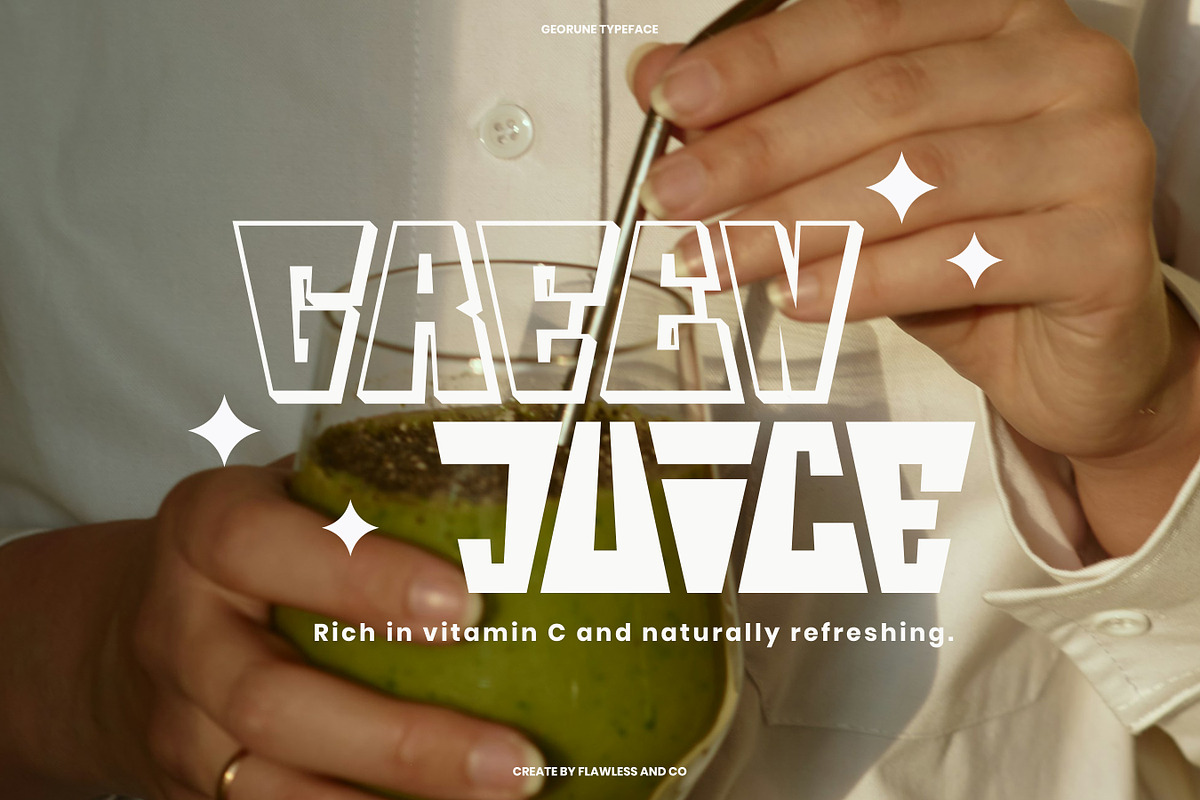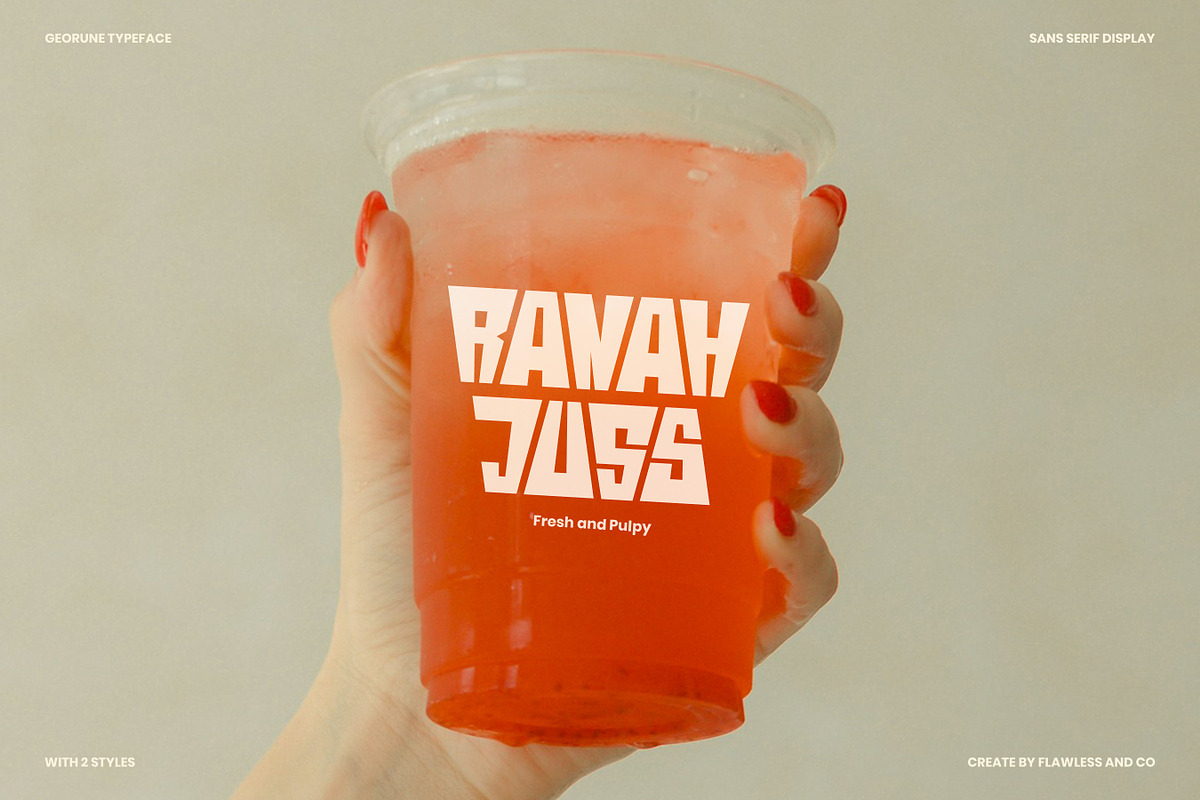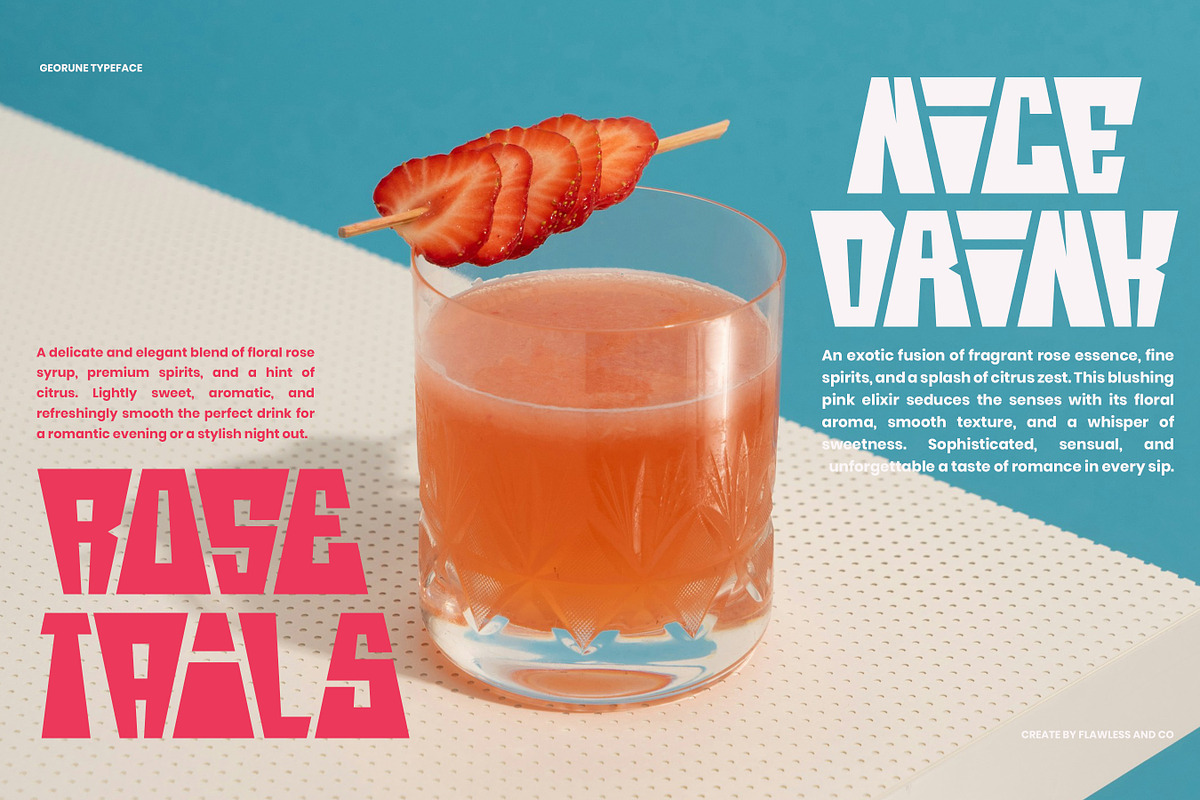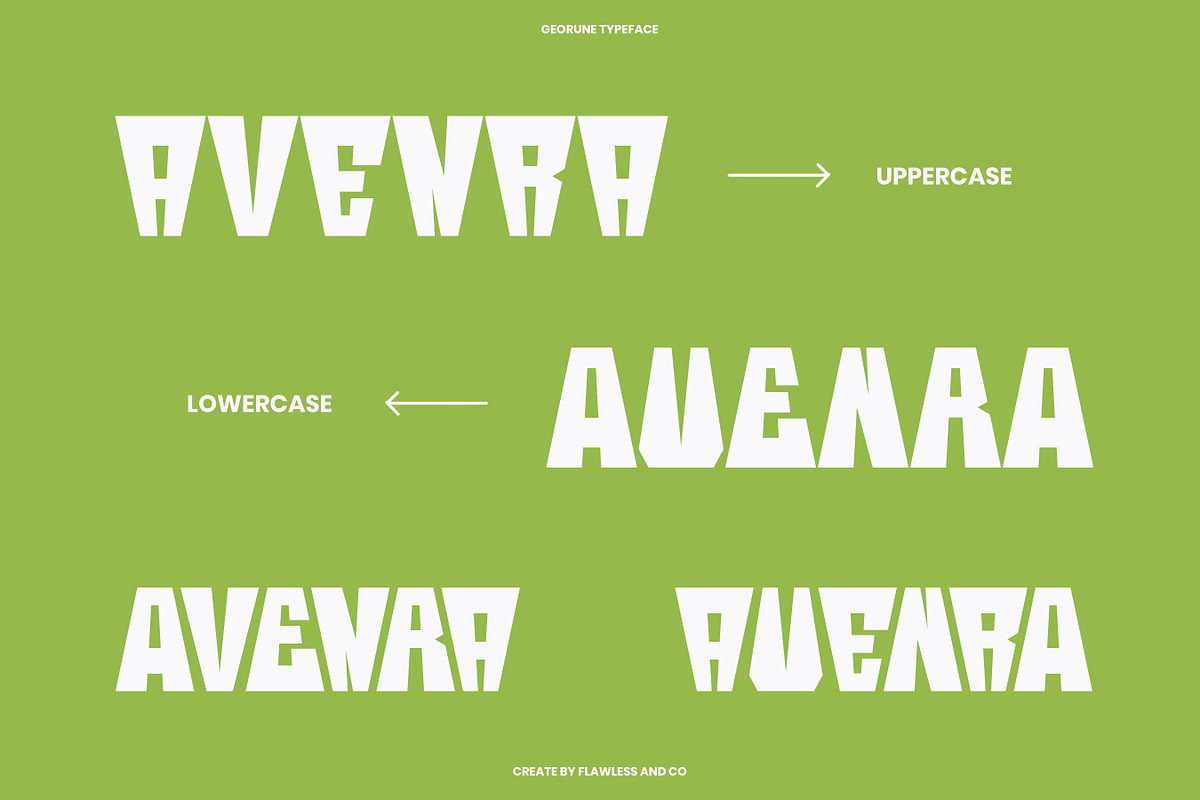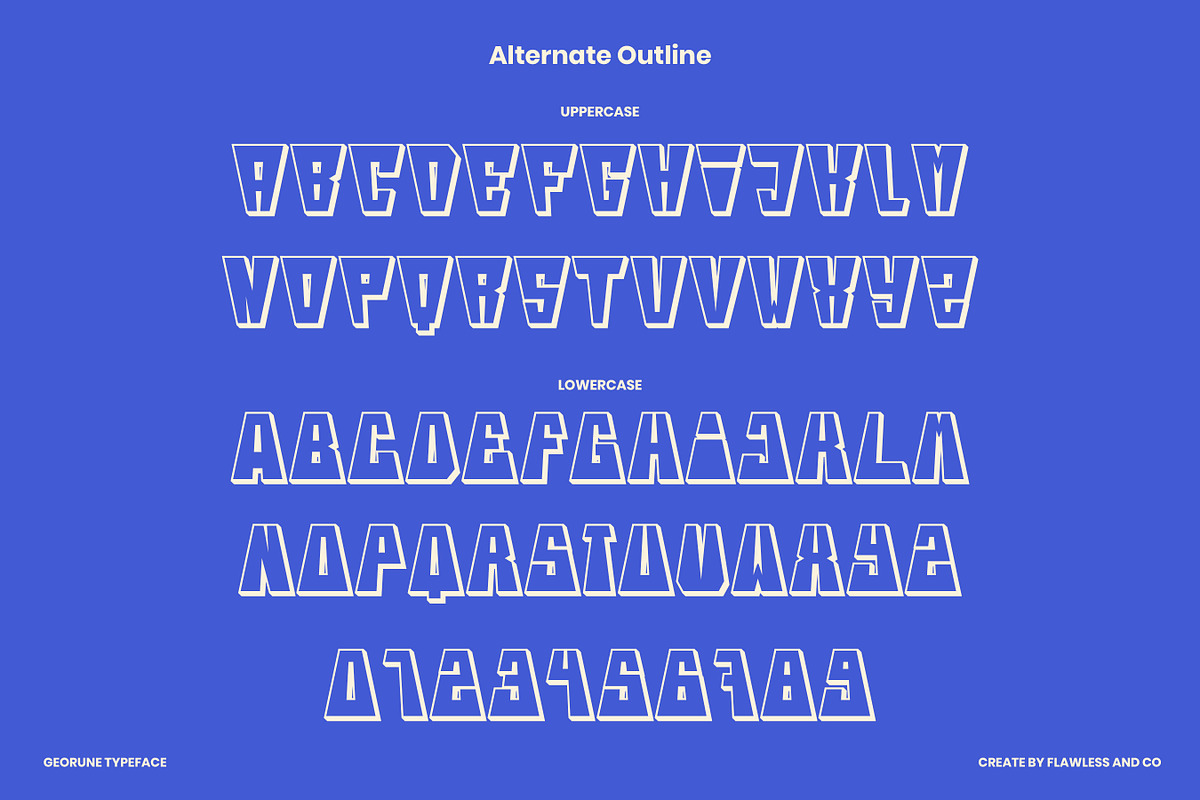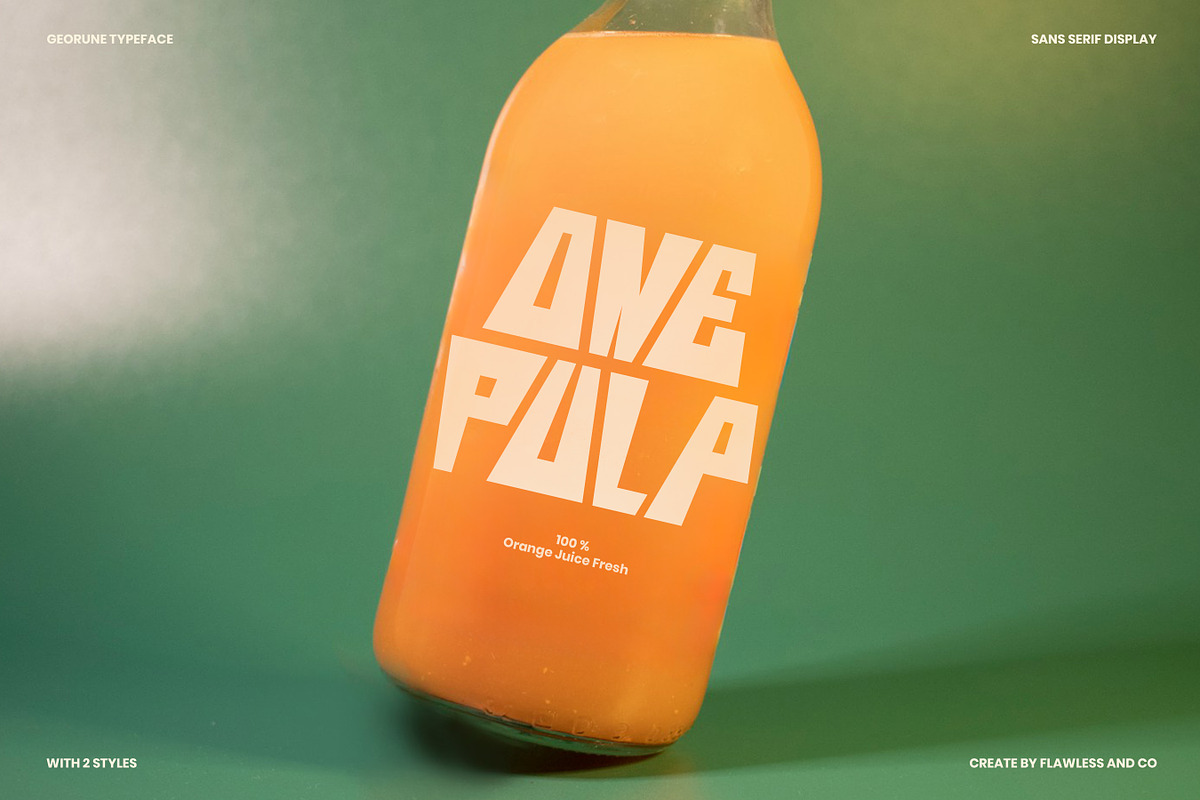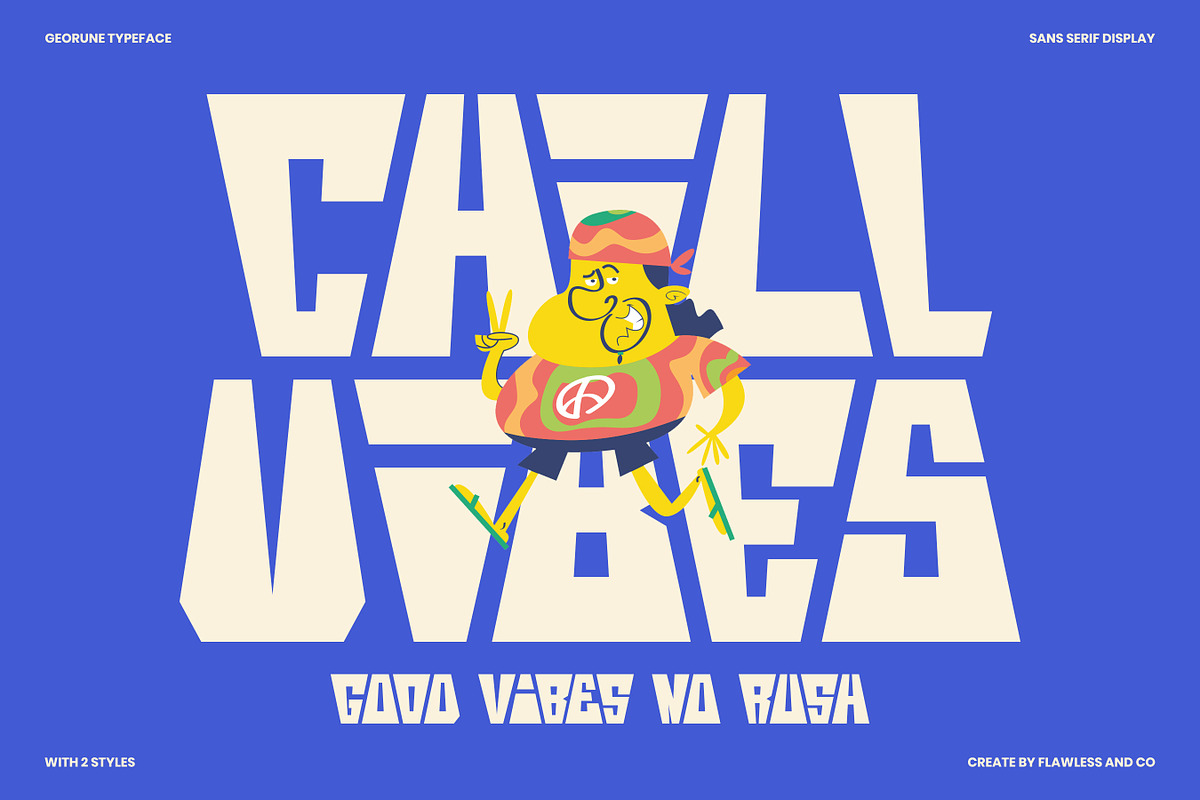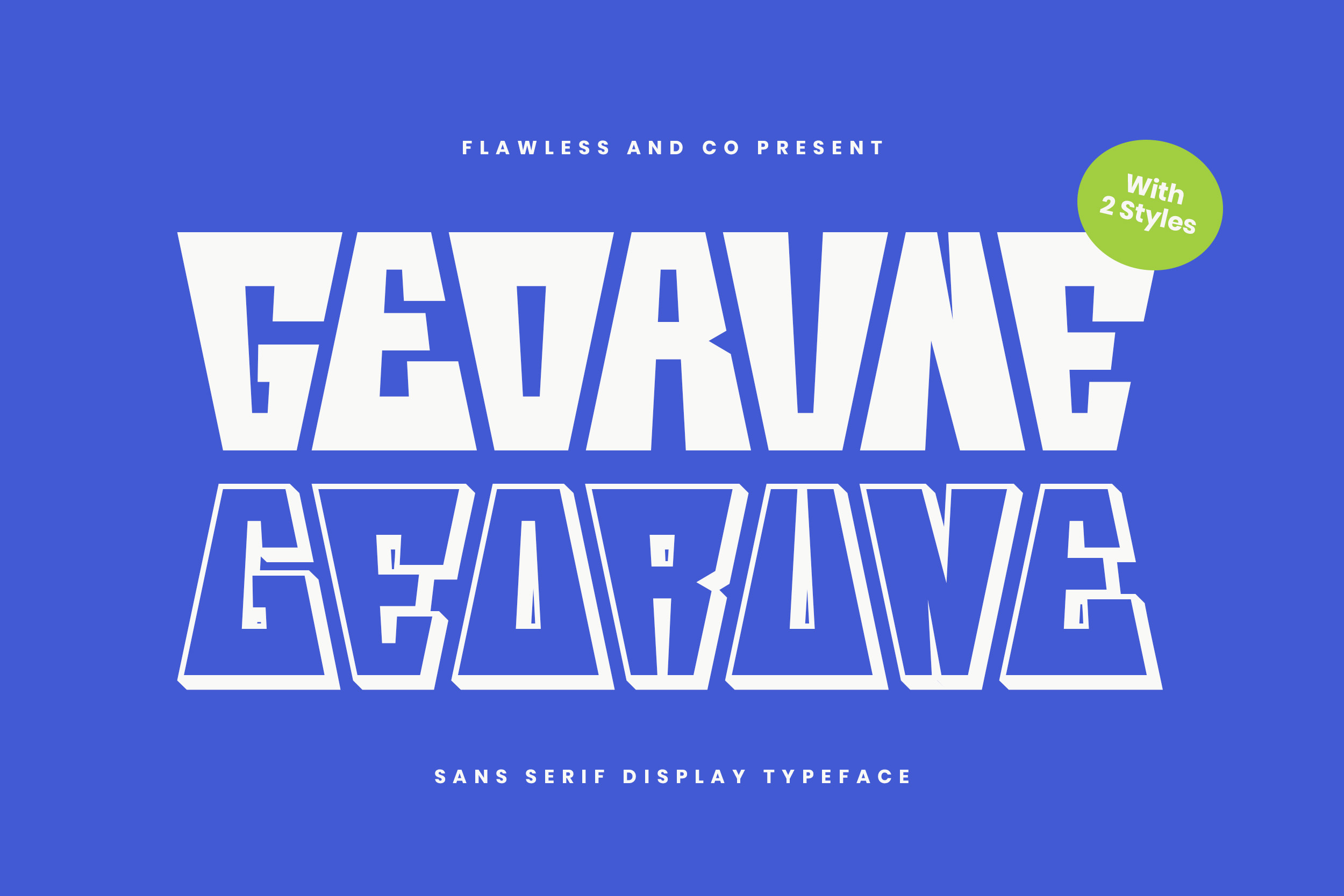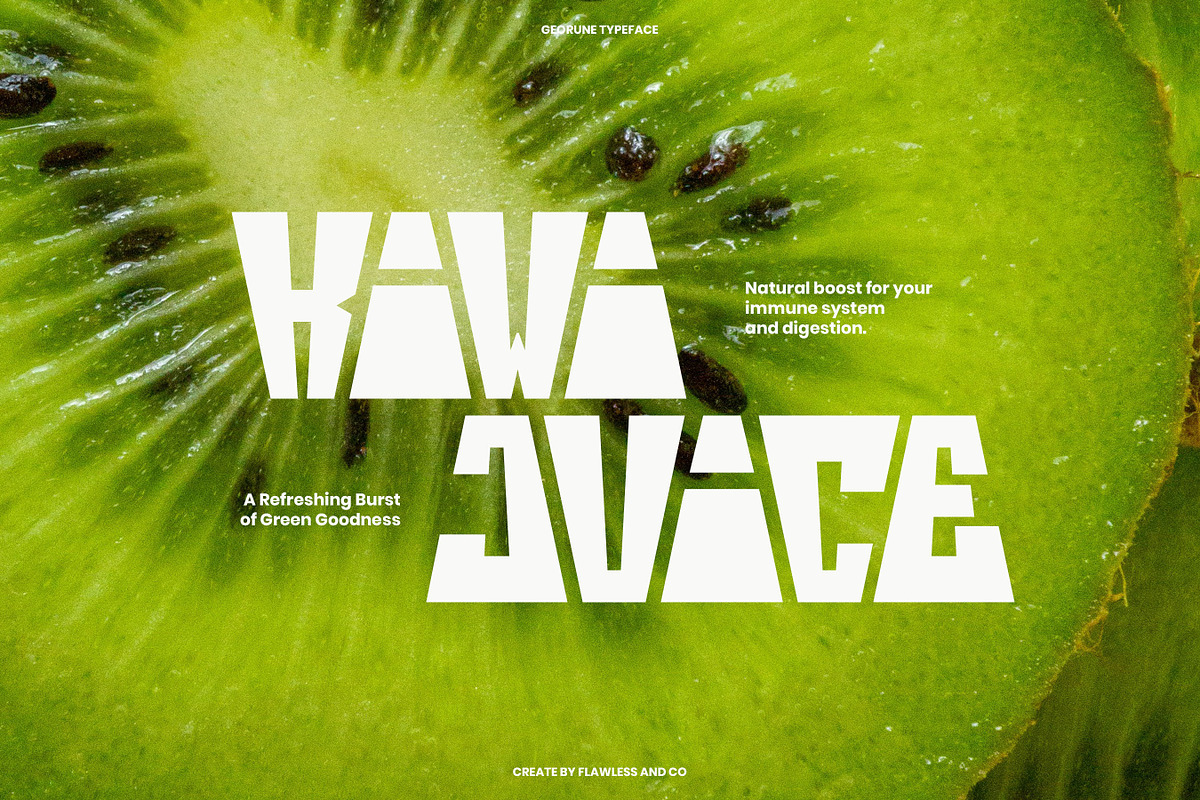
Georune - Sans Serif Display Font
GEORUNE – Sans Serif Display Typeface
Georune a powerful sans serif display typeface built with sharp geometry and rebellious spirit. With its bold stance and angular cuts, Georune brings a futuristic edge to any design — striking, confident, and unmistakably modern. Available in 2 dynamic styles, Georune is perfect for headlines, logos, packaging, posters, and everything that needs attention-grabbing energy. Each character is crafted to deliver impact and rhythm — ideal for creative industries that don’t settle for average.
Who Should Use GEORUNE?
GEORUNE is made for bold thinkers, visionary designers, and brand builders who want their work to stand out from the noise. Whether you're creating for cutting-edge tech, modern beverage packaging, or bold lifestyle branding, this font brings the fearless energy your project needs.
A Must-Have Font for Brand and Logo Creators and Designers
Georune is the ultimate toolkit for creatives who dare to be bold. With its sharp angles and solid forms, this sans serif display font delivers a modern punch that’s perfect for standout logos, edgy packaging, and eye-catching visual identities. Designed for designers who want to make an impact, Georune is more than a typeface — it’s a statement.
Why Choose Georune for Brand and Logo Projects?
Georune stands out with its striking geometric cuts, powerful stance, and ultra-modern flair — making it the perfect choice for building unforgettable brand identities. Its bold shapes command attention, while the two style variations offer flexibility to match different moods and vibes. Whether you're creating logos, wordmarks, or custom display headlines, Georune brings a futuristic yet accessible energy that instantly elevates any branding concept.
Suitable For:
- Logo design & brand identity
- Tech and startup branding
- Bold product packaging
- Poster & headline typography
- Fashion or lifestyle marketing
- Web & app display elements
- Futuristic editorial layouts
- Gaming or cyberpunk themes